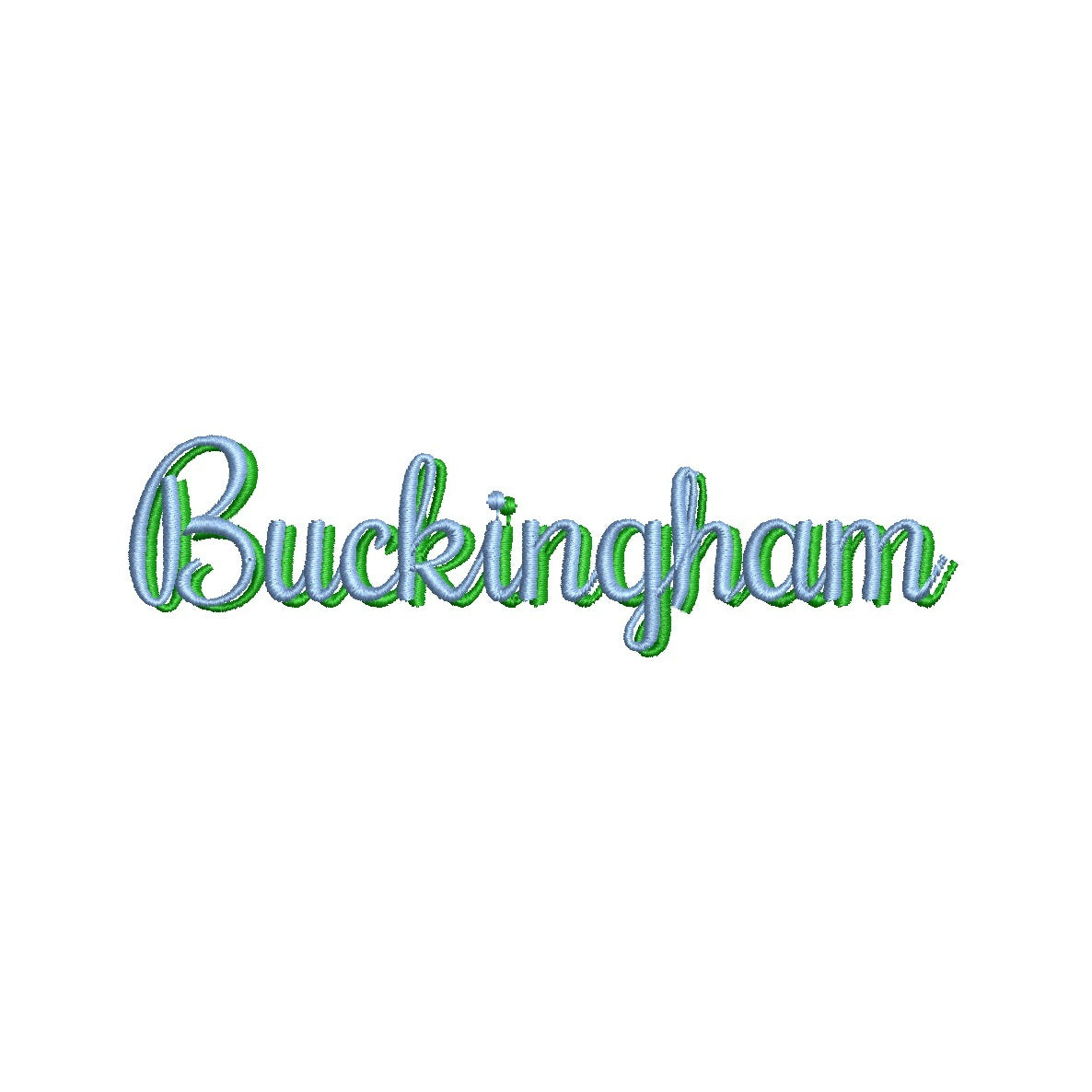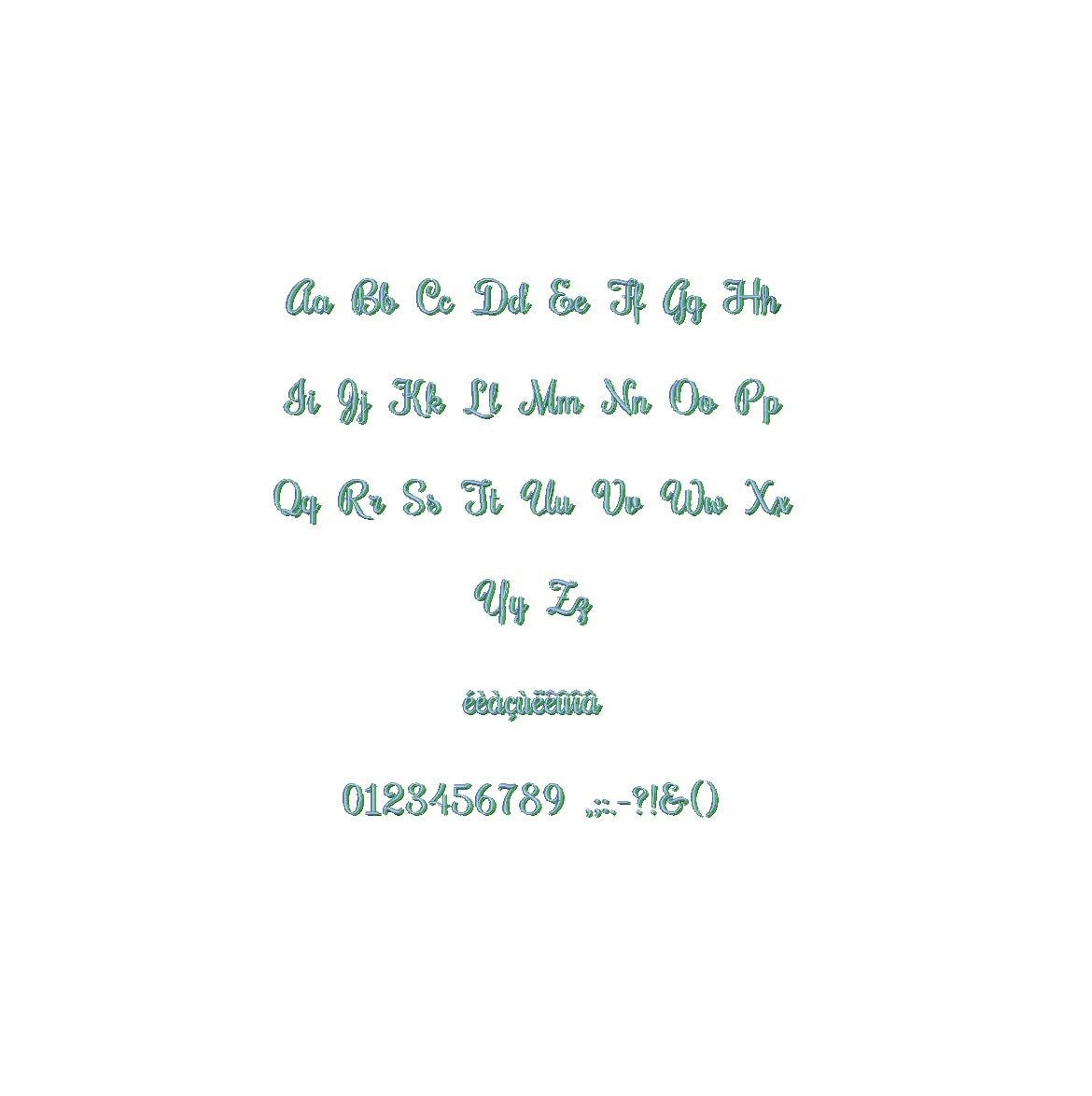
Elevate your design projects with the regal Buckingham Shadow ESA font. Now fully compatible with Wilcom Studio e4.5.6 and Hatch 3 versions and up, this font adds a touch of grandeur and sophistication to your creations. The ornate shadows and refined lines of this font bring a sense of elegance and prestige to every design. Streamline your creative process and achieve impeccable results by utilizing this font with industry-leading software. Upgrade your projects with the compatibility of Buckingham Shadow ESA font and create visuals that exude timeless charm. Embrace the royal essence of this font for your design journey today!